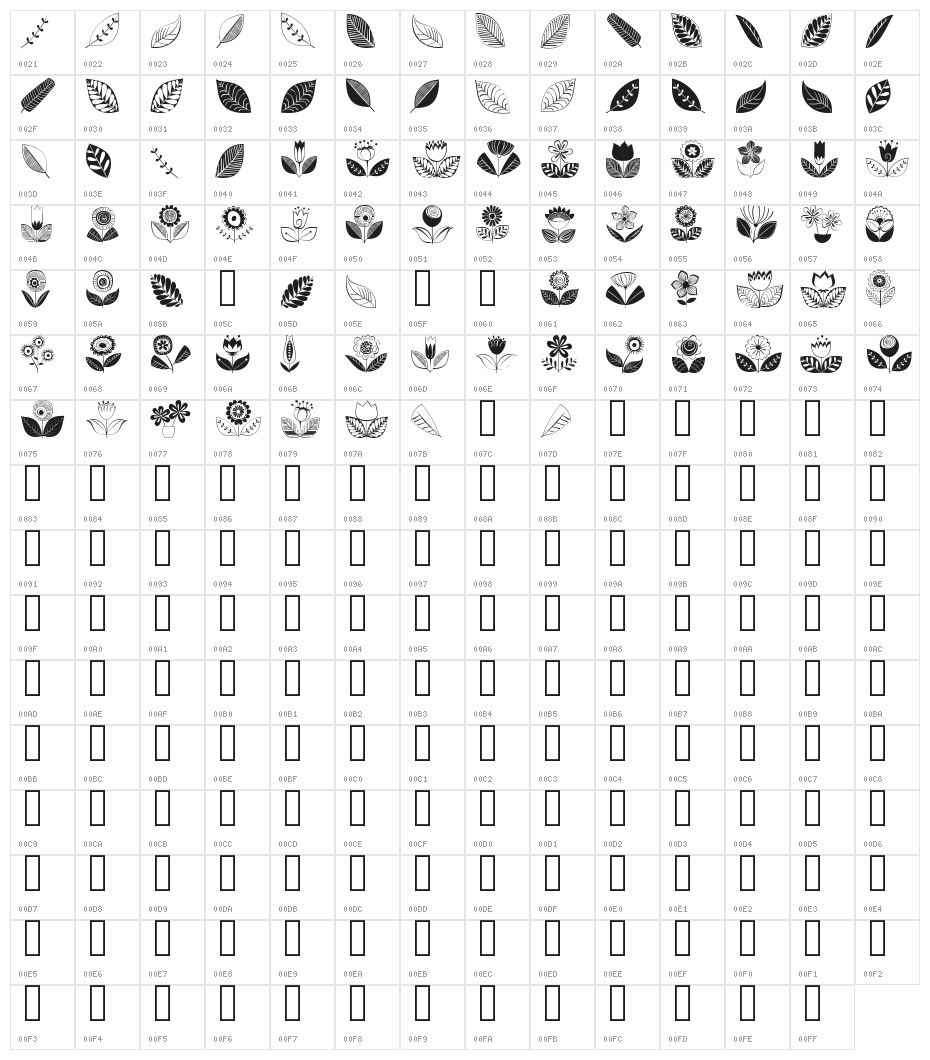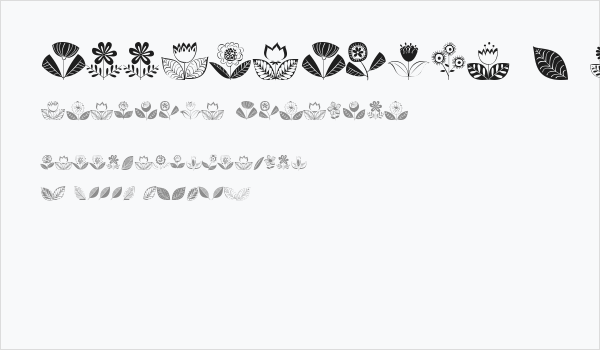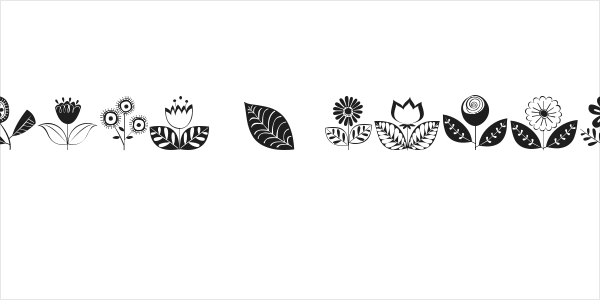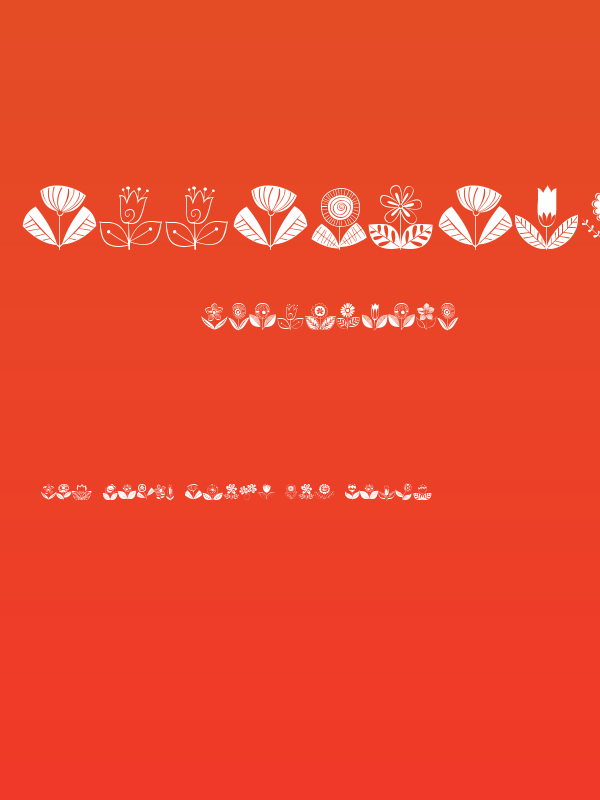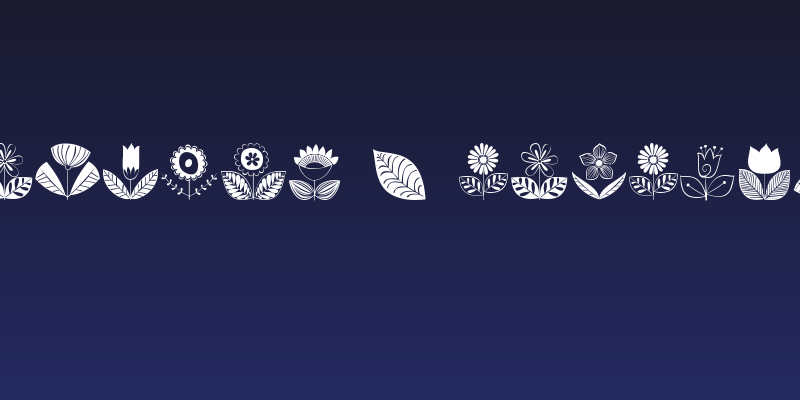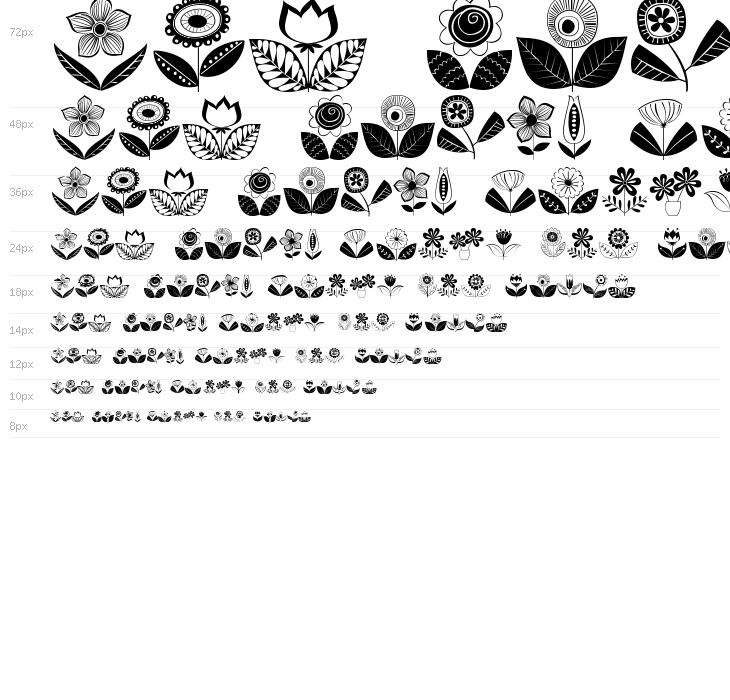
DoodleDings 2 RetroFlowers Font
DoodleDings 2 RetroFlowers Description
A decorative dingbat set featuring retro-inspired floral and leaf illustrations, with bold and intricate line work, high contrast, and playful, whimsical shapes. The designs are highly stylized and ornamental, suitable for embellishing creative projects.
| Overall Style | Decorative, Retro, Whimsical |
| Use Case | Decorative elements, Borders, Accents |
| Proposed Projects | Greeting cards, invitations, scrapbooking, decorative borders, posters, packaging, and digital artwork. |